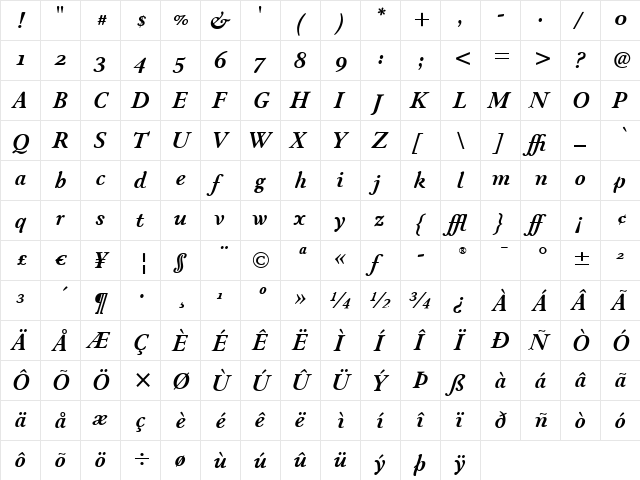
Winchester New ITC Bold Italic
Design Context for Winchester New ITC Typeface
Winchester New ITC offers clean, dependable letterforms without strong stylistic allegiance, making it a practical choice for designers who need flexibility. The dynamic lean of this cut emphasises speed and emphasis in any layout. Its bold stroke weight gives it real presence on the page.
Pro Tip: Use Winchester New ITC for emphasis, pull quotes, and subheadings where its slanted energy can add rhythm to the layout.